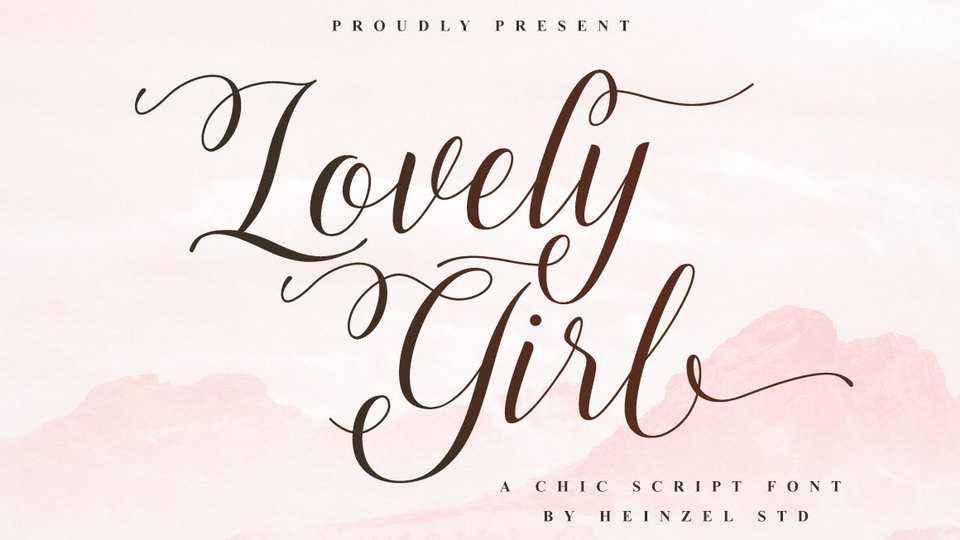
Download Lovely Girl font, a new modern and fresh script with a modern calligraphy style make this font looks elegant, natural, stylish and perfect for any awesome projects that need handwriting taste.
Designer: Heinzel Studio